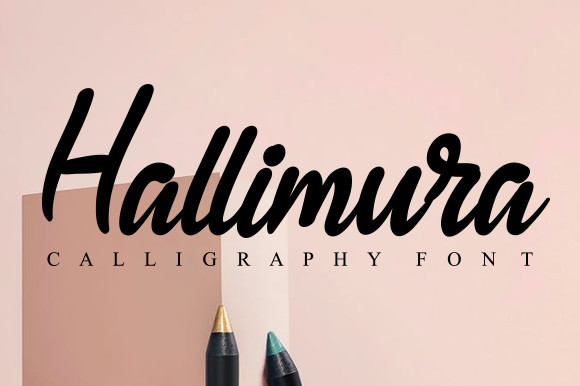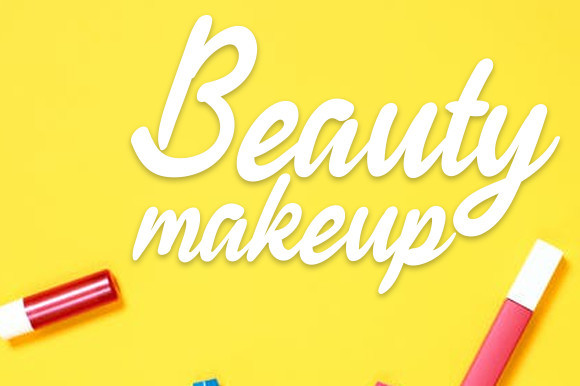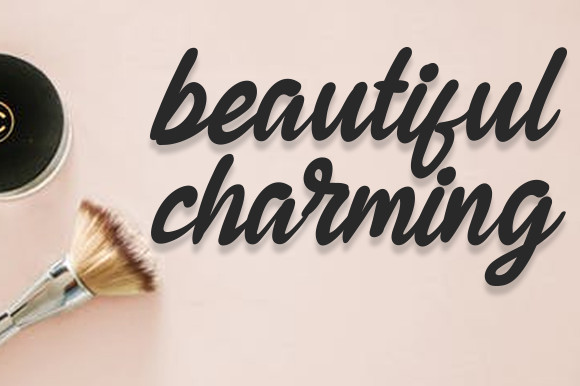
Hallimura Font
Hallimura is an elegant and classy handwritten font, carefully handcrafted to become a true favorite. Its casual charm makes it appear wonderfully down-to-earth, readable and, ultimately, incredibly versatile.